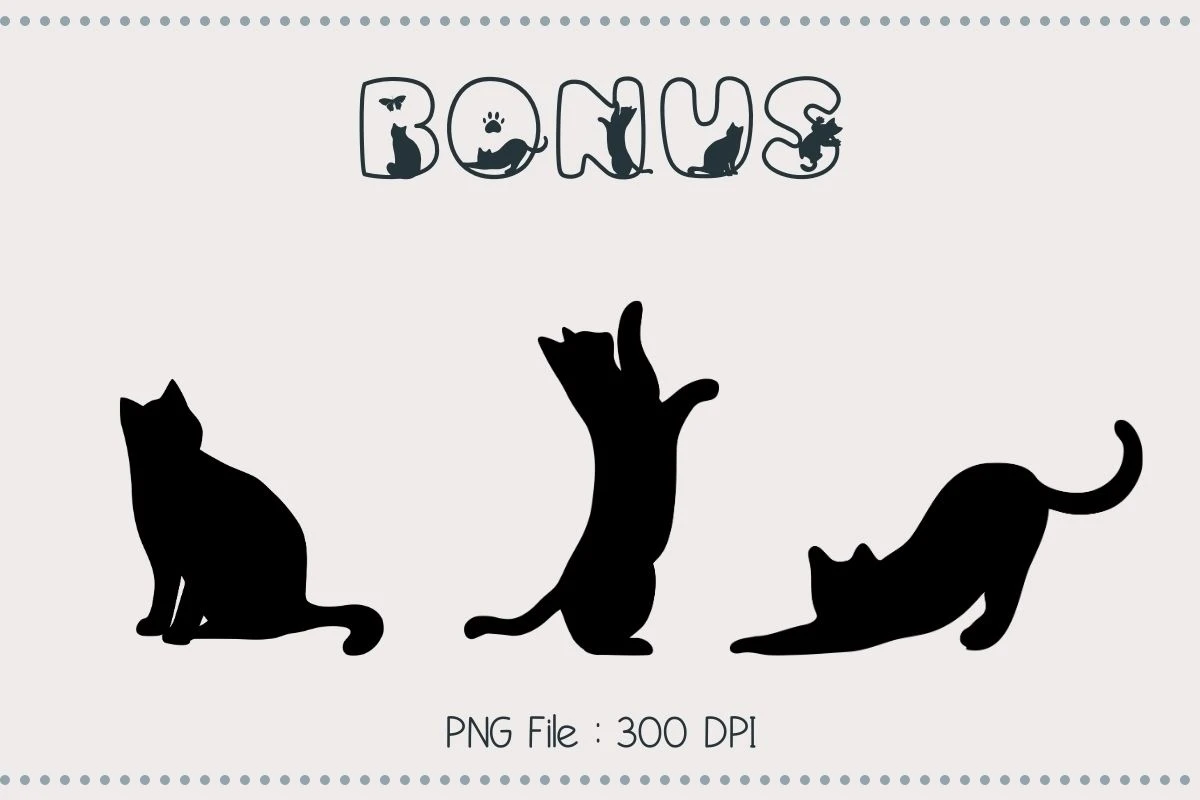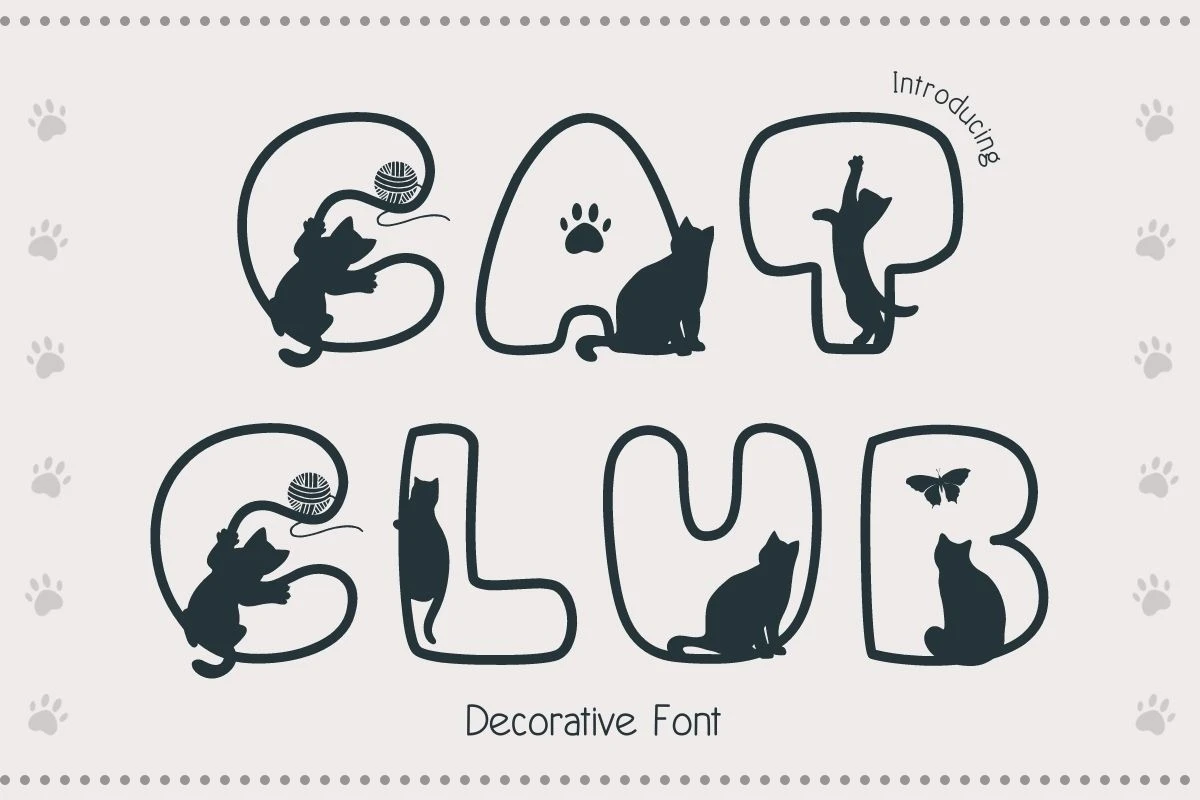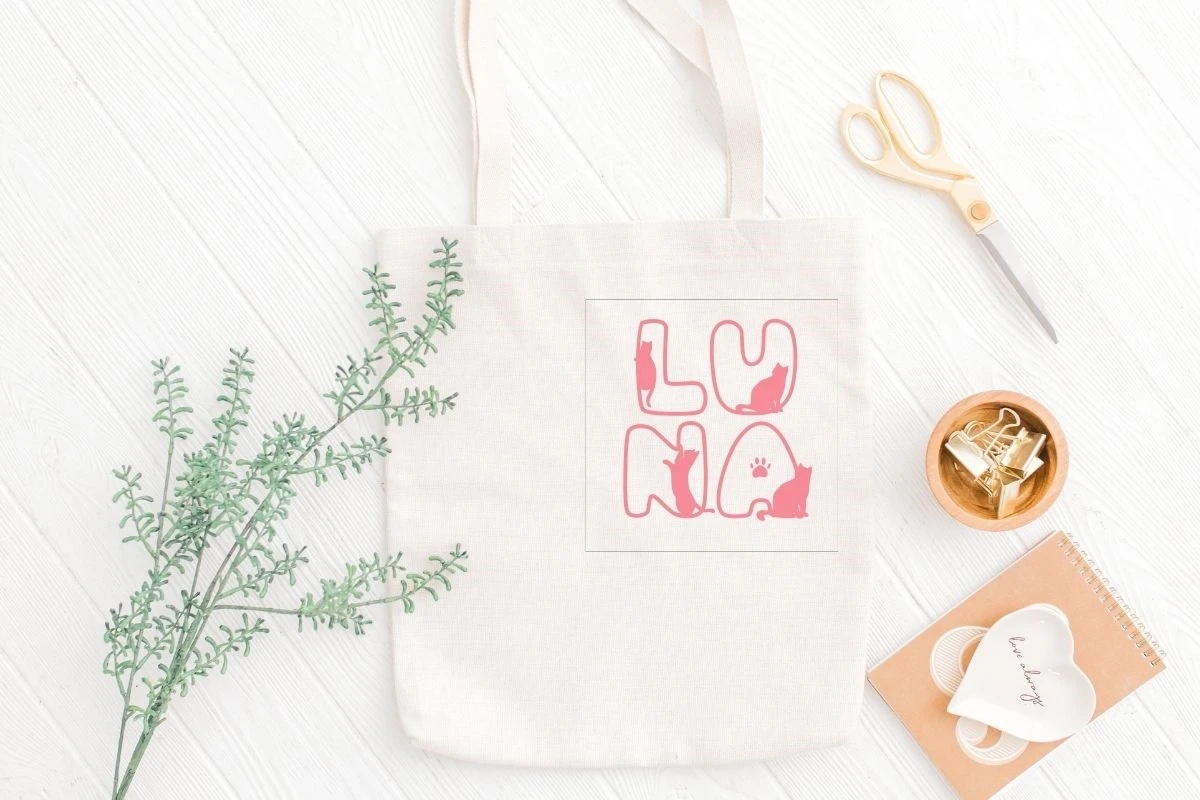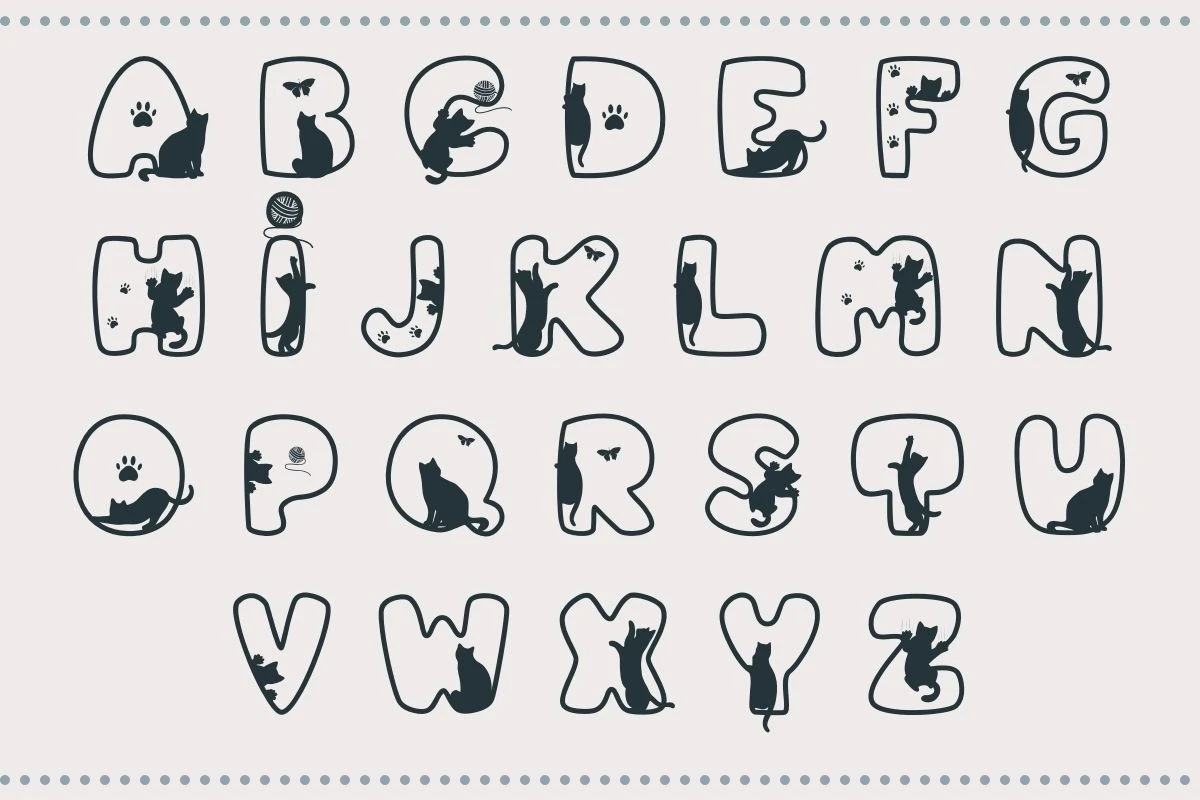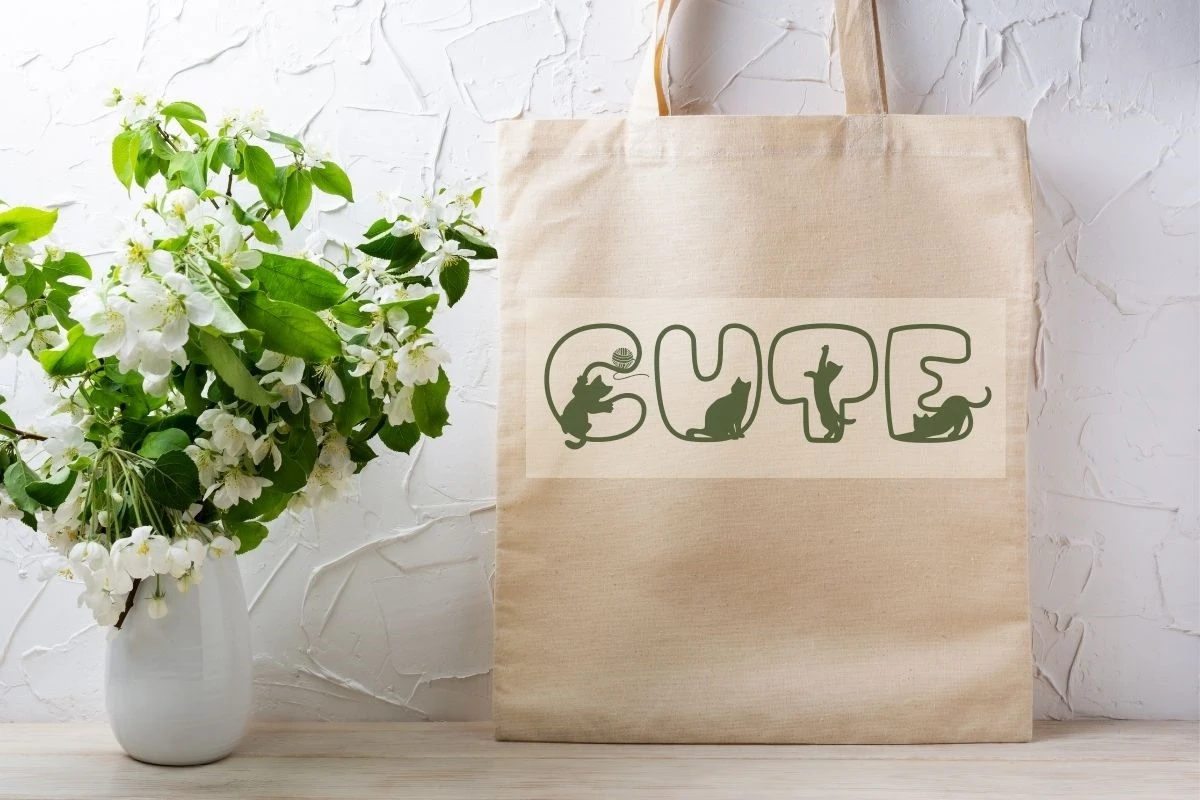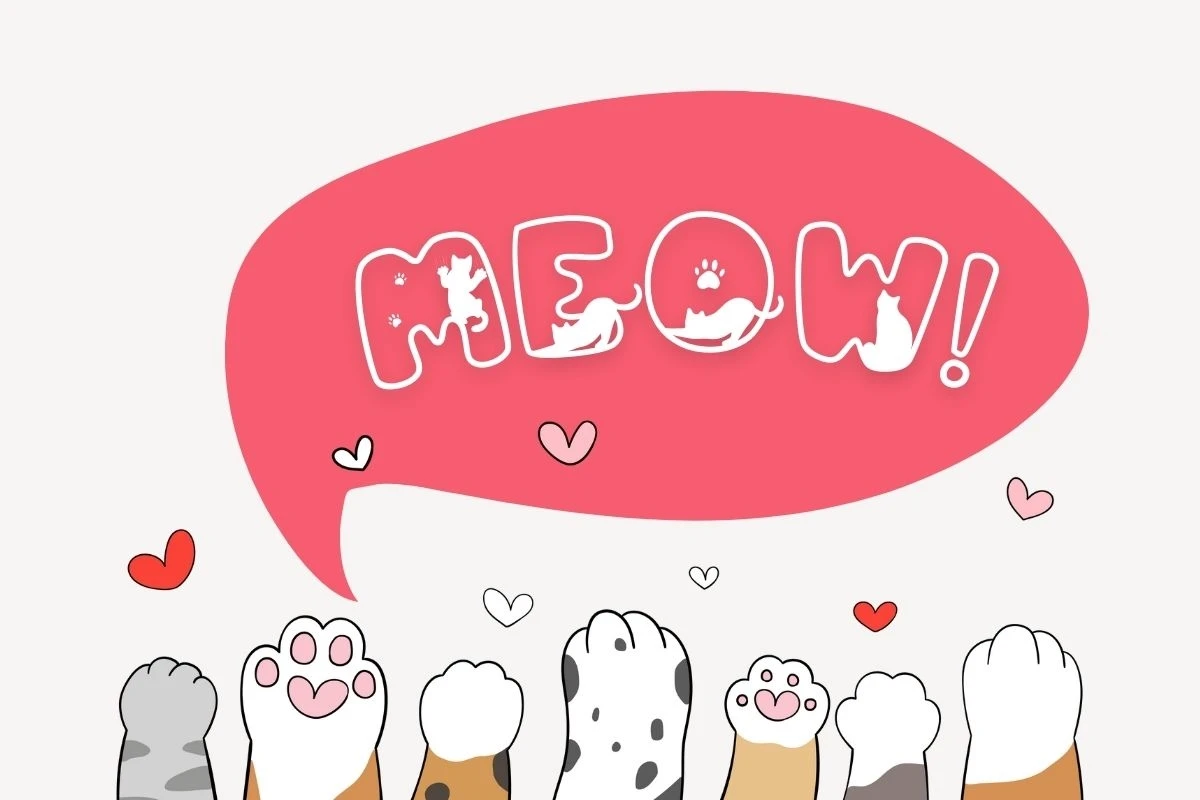
CAT CLUB is a cute decorative font. This font uses multiple cat silhouettes combined with transparent fonts. This font has a cute and quirky style. Perfect for creating a wide variety of new designs to match products such as banners, content, mugs, cards, shirts, stationery, social media posts, and more!